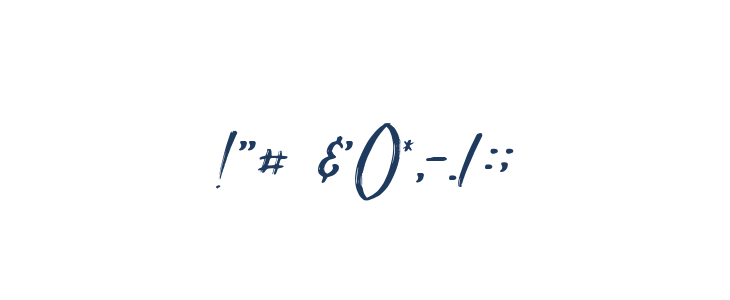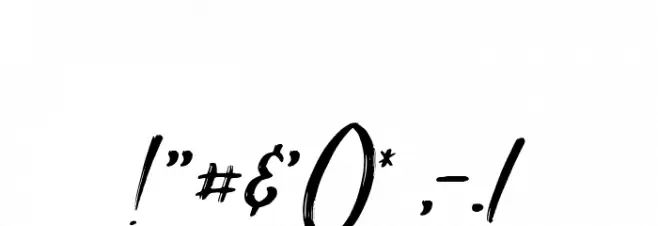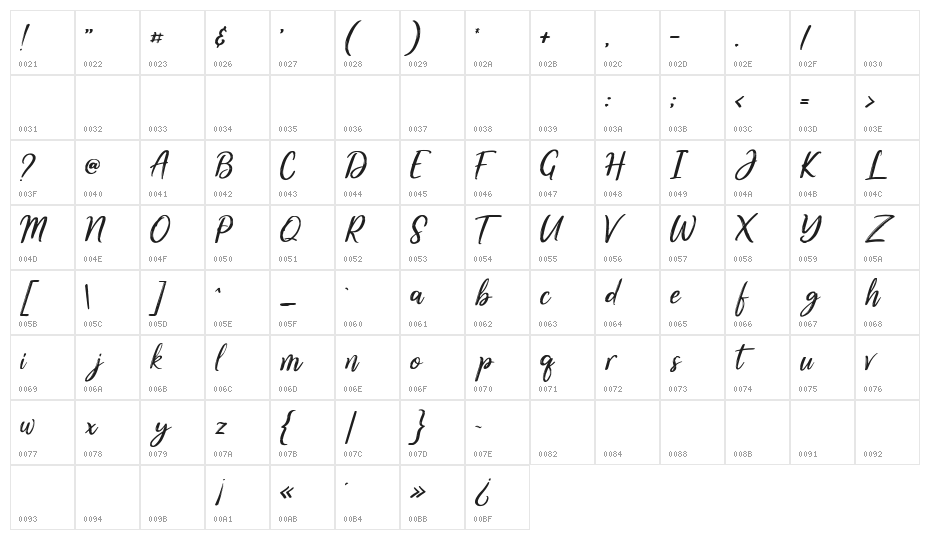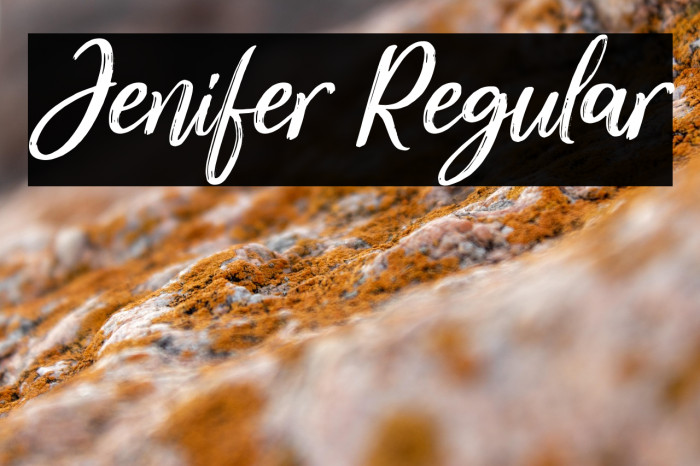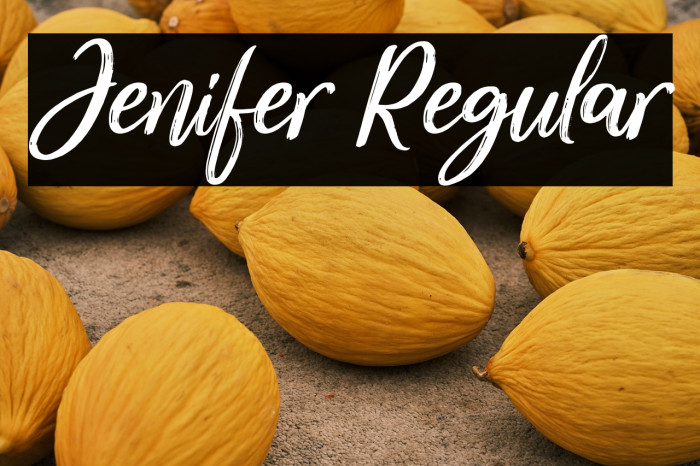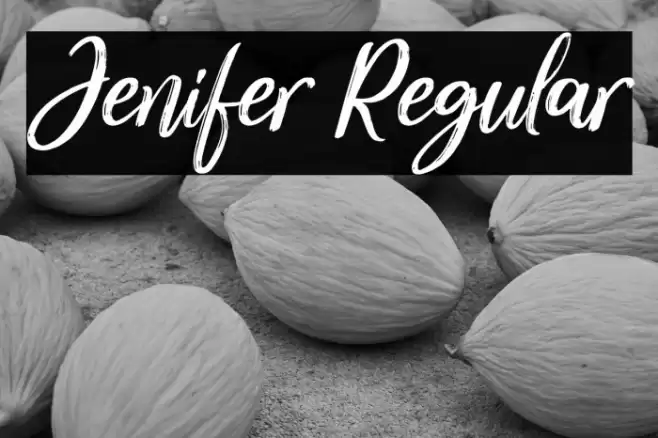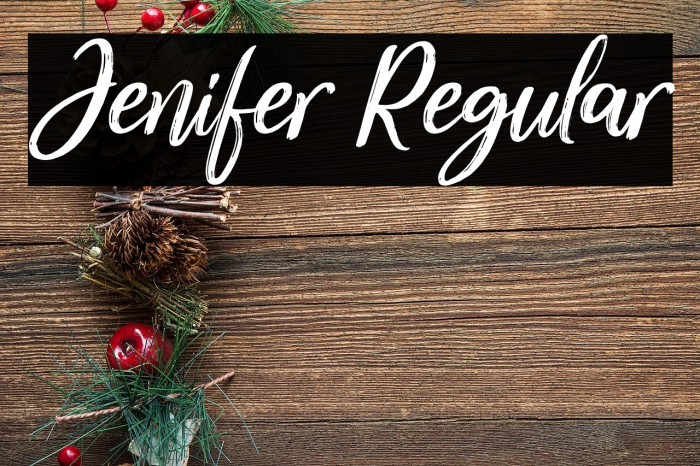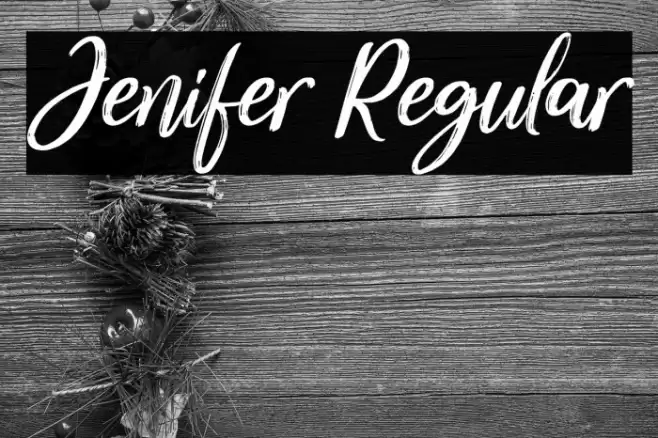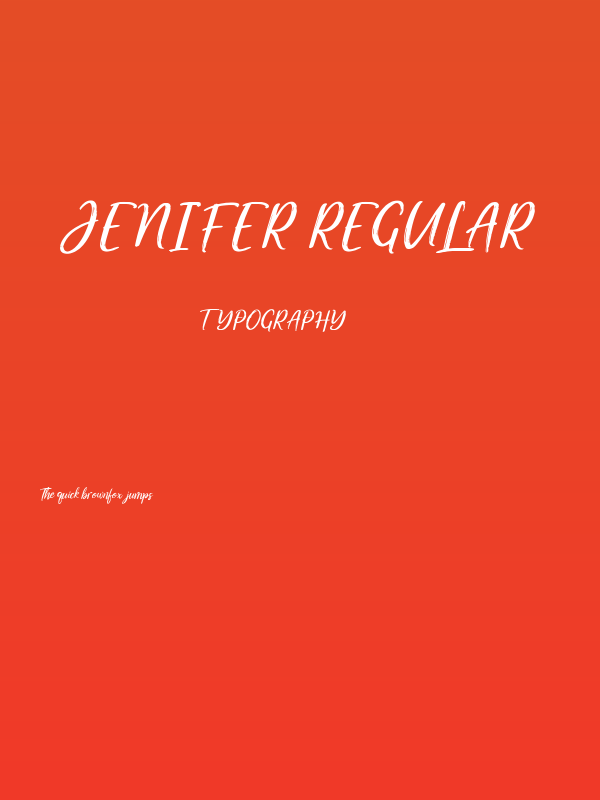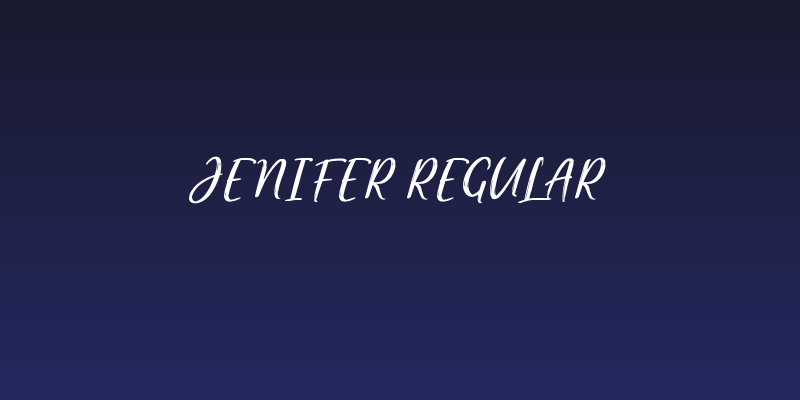
Jenifer Regular Font
Jenifer Regular Description
This font exudes a lively and expressive character, featuring a handwritten style with fluid, cursive strokes. The uppercase letters are tall and slightly slanted, giving a sense of movement and elegance. The lowercase letters maintain a consistent flow, with some letters featuring loops and swashes that add to the overall dynamic appearance. The numbers and special characters are designed to match the playful yet sophisticated style, making it versatile for various creative applications. The font's brush-like texture adds an artistic touch, making it suitable for projects that require a personal and informal feel.